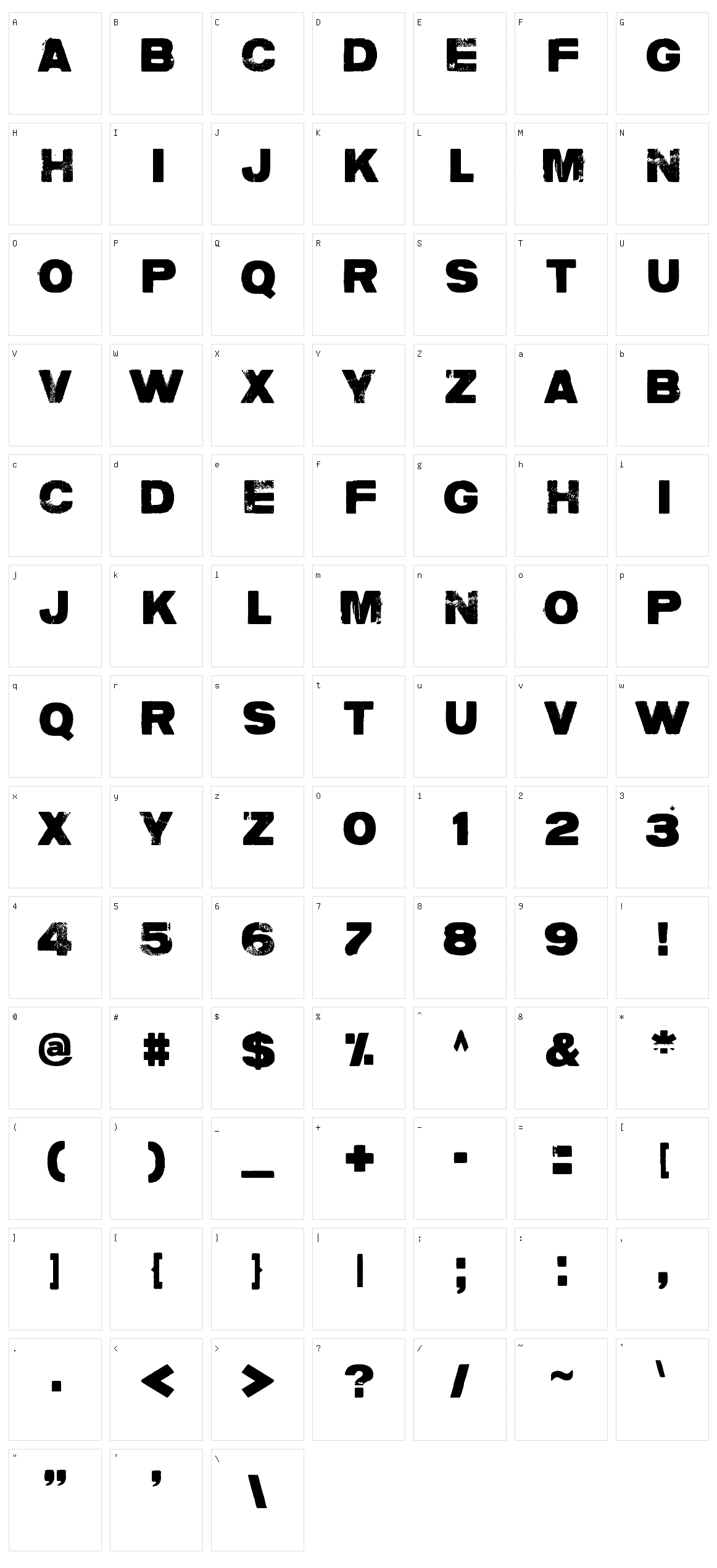
The free font Charlie don't surf! is carefully designed by junkohanhero, showcasing a thoughtful balance of creativity and usability and falls under the Eroded font style. When you download the ZIP file, it contains only 58.04 KB of font files, making it lightweight and quick to download. Please review the license details below to understand permitted usage and distribution rights. If license information is not available, we recommend using this font for personal projects only or contacting the author directly for commercial usage permissions.